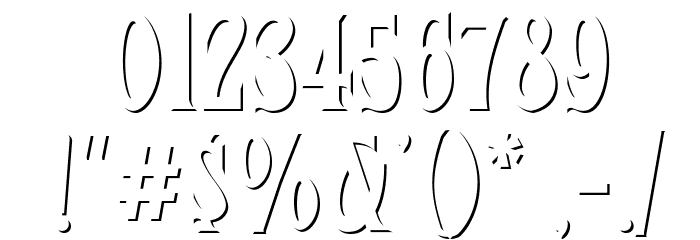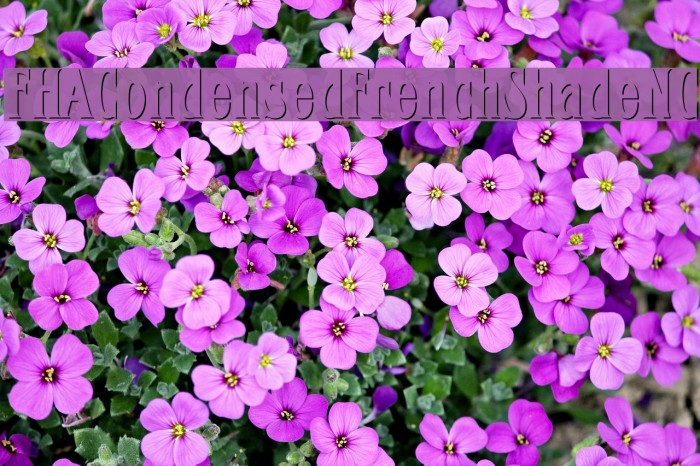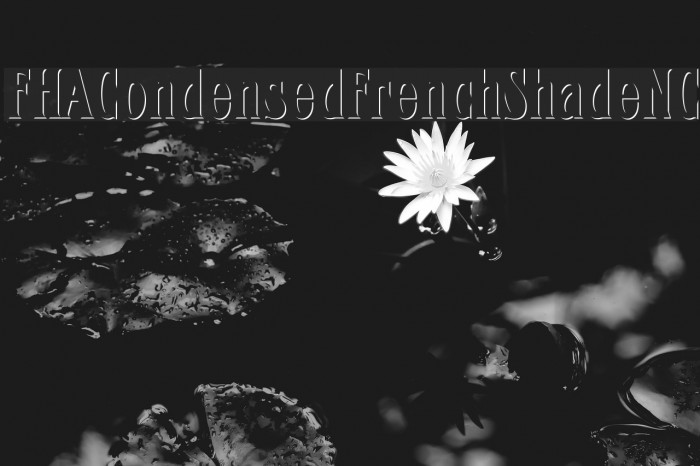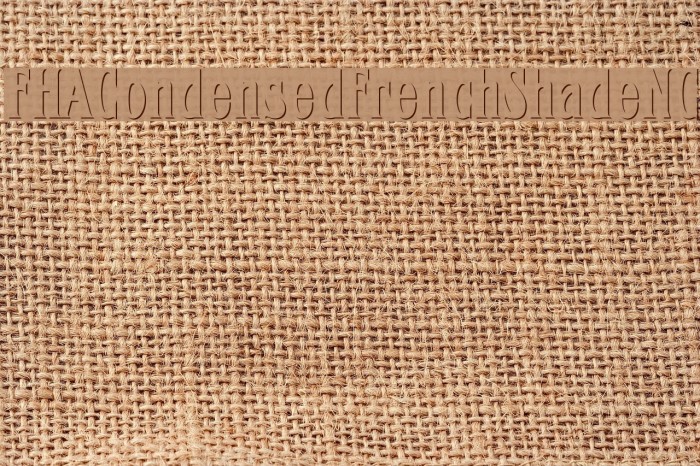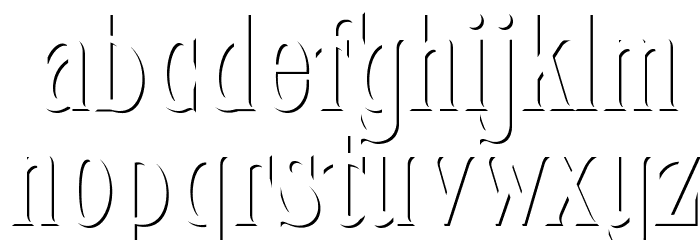
FHACondensedFrenchShadeNC Font
This font features a distinctive shadow effect that gives it a three-dimensional appearance. The characters are condensed, with a tall and narrow structure, creating a striking and bold visual impact. The uppercase and lowercase letters maintain a consistent style, with sharp serifs and clean lines. The numbers and special characters are designed to match the overall aesthetic, ensuring a cohesive look across all text. This font's unique shading adds depth and sophistication, making it ideal for eye-catching designs.
A condensed serif font with a three-dimensional shadow effect.
• Proposed Projects: Ideal for vintage posters, branding, packaging, and editorial design where a bold and sophisticated look is desired.
• Category: Serif
• Bold: Yes
• Italic: No
• Weight: Bold
• Width: Condensed
• Character Spacing: Normal
• Contrast: Medium
• Overall Style: Vintage
• Use Case: Headlines, Logos, Posters